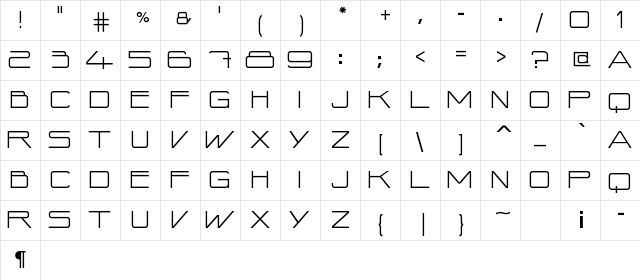
Time N Space Regular Font Preview
Time N Space Regular
Time N Space Regular Font Details
| Foundry | Galdino Otten |
| Designer | Typeface 頇aldino Otten. 2013. All Rights Reserved |
Design Context for Time N Space Typeface
Time N Space offers clean, dependable letterforms without strong stylistic allegiance, making it a practical choice for designers who need flexibility.
Pro Tip: Use Time N Space in both headline and body roles to test its range before committing to a single application.